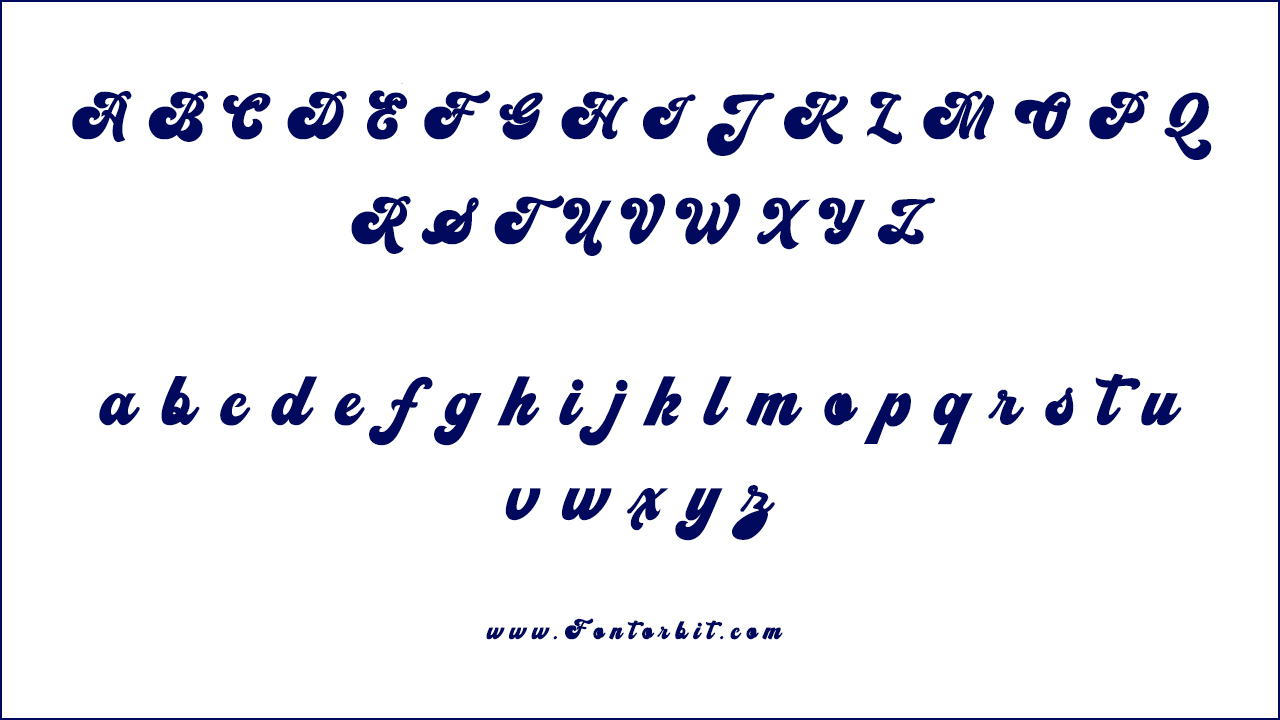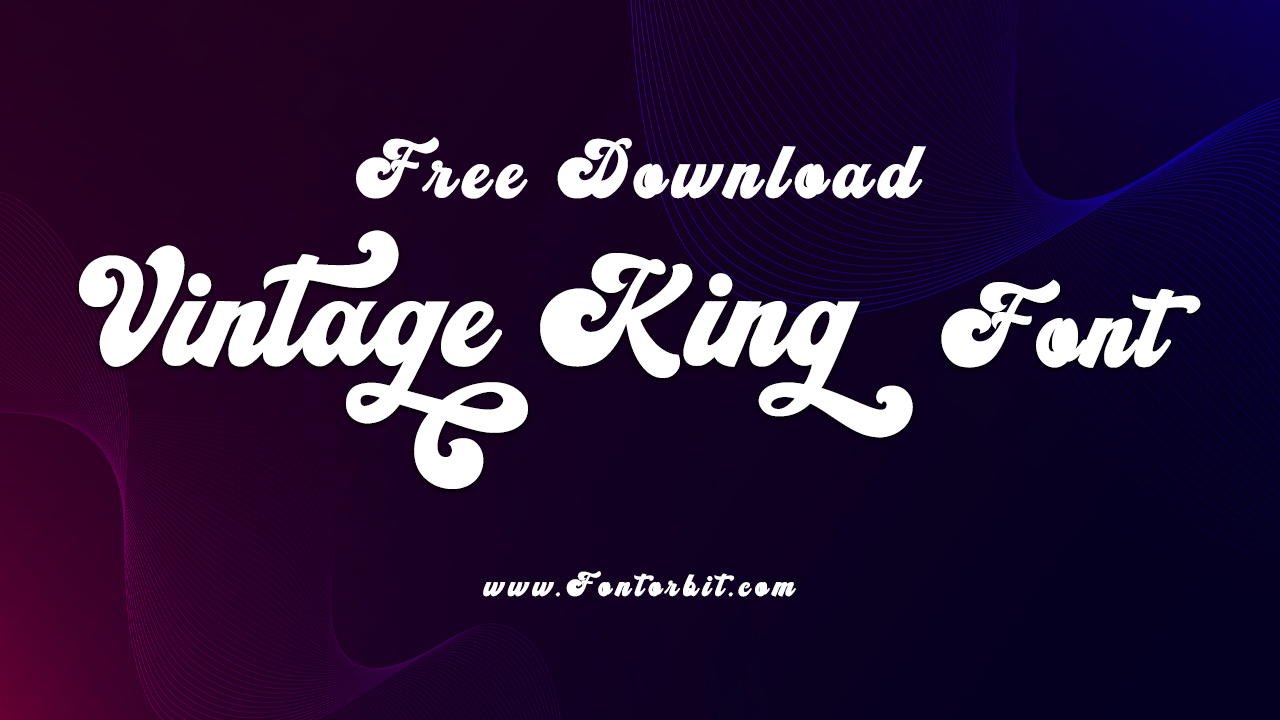
Vintage King Font is a bold and retro script typeface inspired by the typography of the 70s and 80s. With its clean and rough versions, this font captures the essence of vintage design with a modern twist. Designed by Putra Novembria Candra Kusuma, Vintage King is free for personal and commercial use.
The Vintage King Font Family Includes
Vintage King’s design is a nod to retro typography with its bold and dynamic style. The font family features multiple variations, each offering a unique take on classic retro aesthetics.
- Vintage King Regular
- Vintage King Rough
Vintage King’s bold and retro style makes it perfect for various creative and commercial design projects. Its distinctive look is ideal for making a strong visual impact in numerous contexts.
- Event Posters
- T-Shirt Designs
- Packaging
- Book Covers
- Headlines for Websites
- Promotional Materials
Vintage King Font Found In Use
Vintage King is frequently used in designs that evoke a sense of retro charm and boldness. Its versatile style suits a range of applications, from branding to packaging, where a vintage aesthetic is desired.
Vintage King Font embodies the bold, retro style of past decades with its clean and rough versions. While it may not replicate any specific historical typeface, it captures the nostalgic spirit of vintage typography. Pair Vintage King with modern, clean fonts or design elements to create a striking and balanced composition.
1.Is Vintage King Font Suitable For Headings Or Body Text?
Vintage King is ideal for headings due to its bold, retro style. Its strong presence makes it stand out in larger sizes, while it may be less suitable for body text where subtlety and readability are key.
2.What Is The Difference Between Vintage King Font And Other Decorative Fonts?
Vintage King stands out with its retro, bold script style inspired by past decades. Unlike other decorative fonts, it combines vintage charm with a modern edge, making it perfect for impactful designs.
3.What Are The Popular Uses Of Vintage King Font?
Vintage King is popular for logos, event posters, t-shirt designs, and other branding materials due to its bold, retro aesthetic and eye-catching style.
4.What Are The Design Principles Behind The Vintage King Font?
Vintage King’s design principles focus on boldness, retro aesthetics, and versatility. The font features a dynamic and nostalgic style, capturing the essence of vintage typography.
5.What Is The Color Palette Used In The Vintage King Font?
While Vintage King does not have a specific color palette, it is commonly showcased in vibrant and contrasting colors to highlight its retro and bold qualities.